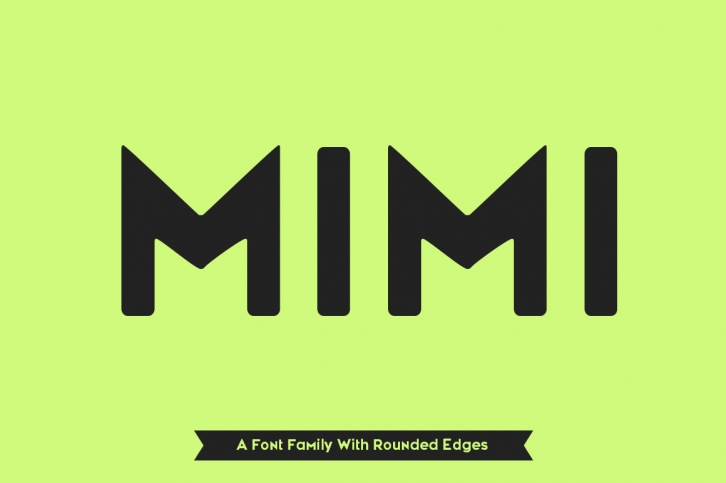
Mimi Typeface is a gorgeous font that was realeased on March 9, 2017. The font can be used in many style contexts and design environments. Perfect for invitations, magazines, websites, logos, and more! It was designed by Tosca Digital and the file size is 20.37 MB. Thanks for checking out this font!